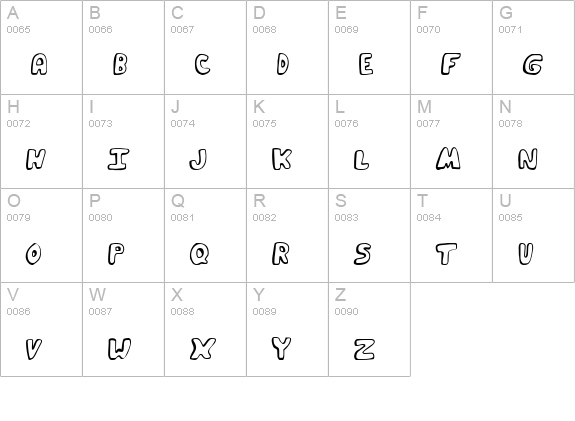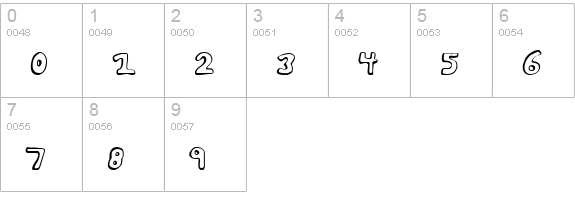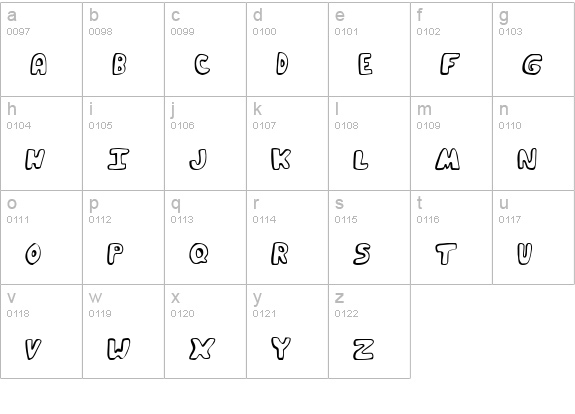
Funky Muskrat Regular is the standard, neutral variant in the Funky typeface family \xE2\x80\x94 well suited to general body text, paragraphs, and standard typographic work.
Funky Muskrat Regular font is a quirky and playful typeface that exudes a unique charm. With its bold strokes and whimsical design, this font is perfect for adding a fun and energetic touch to any project. Whether you're working on a poster, logo, or website, Funky Muskrat Regular will surely make a statement. The best part is that Funky Muskrat Regular font is completely free! That's right, you can freely download this font at FontsMarket.com and start using it in your designs without any restrictions. So go ahead and give your projects a funky and fresh look with Funky Muskrat Regular font today!